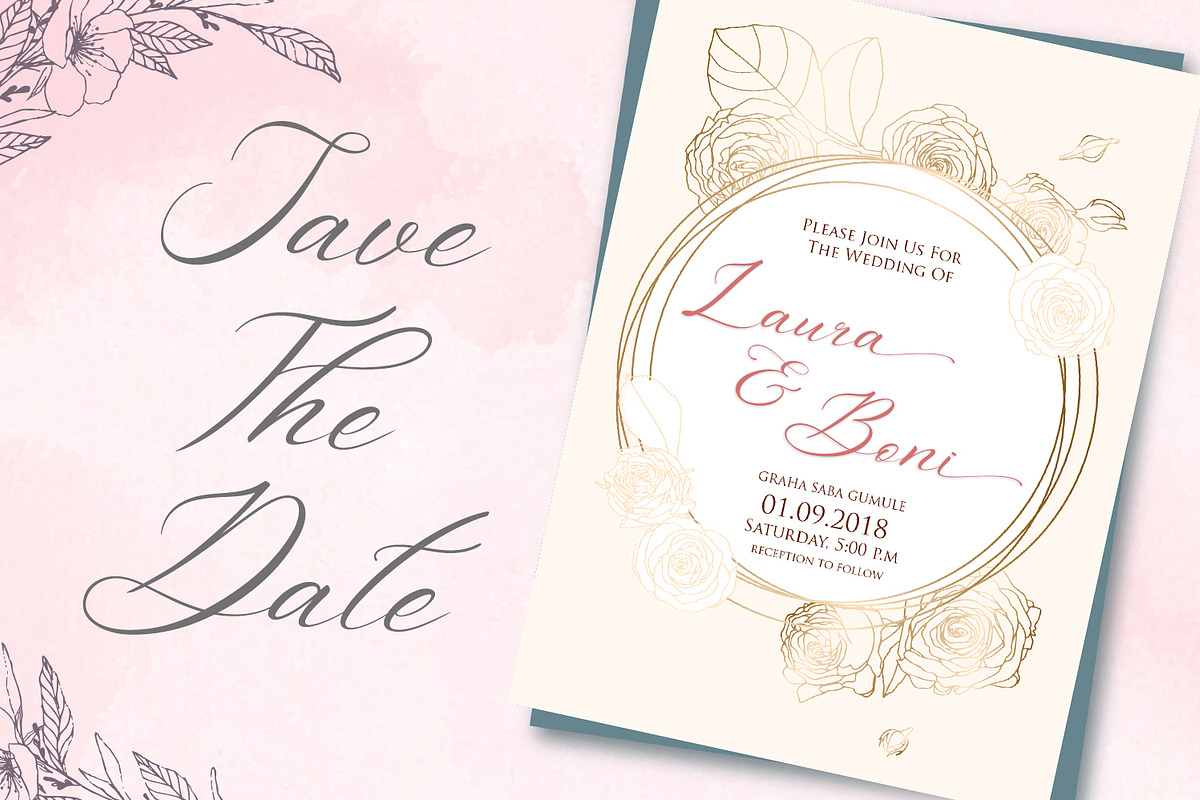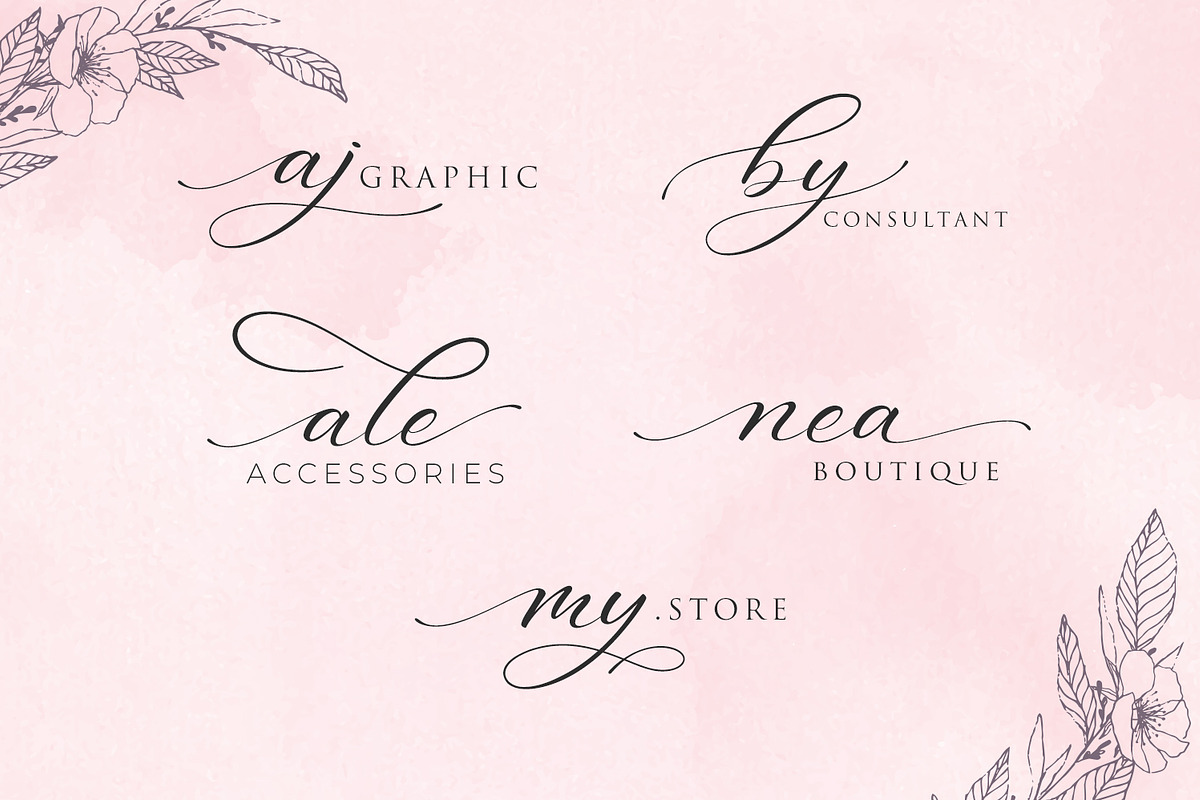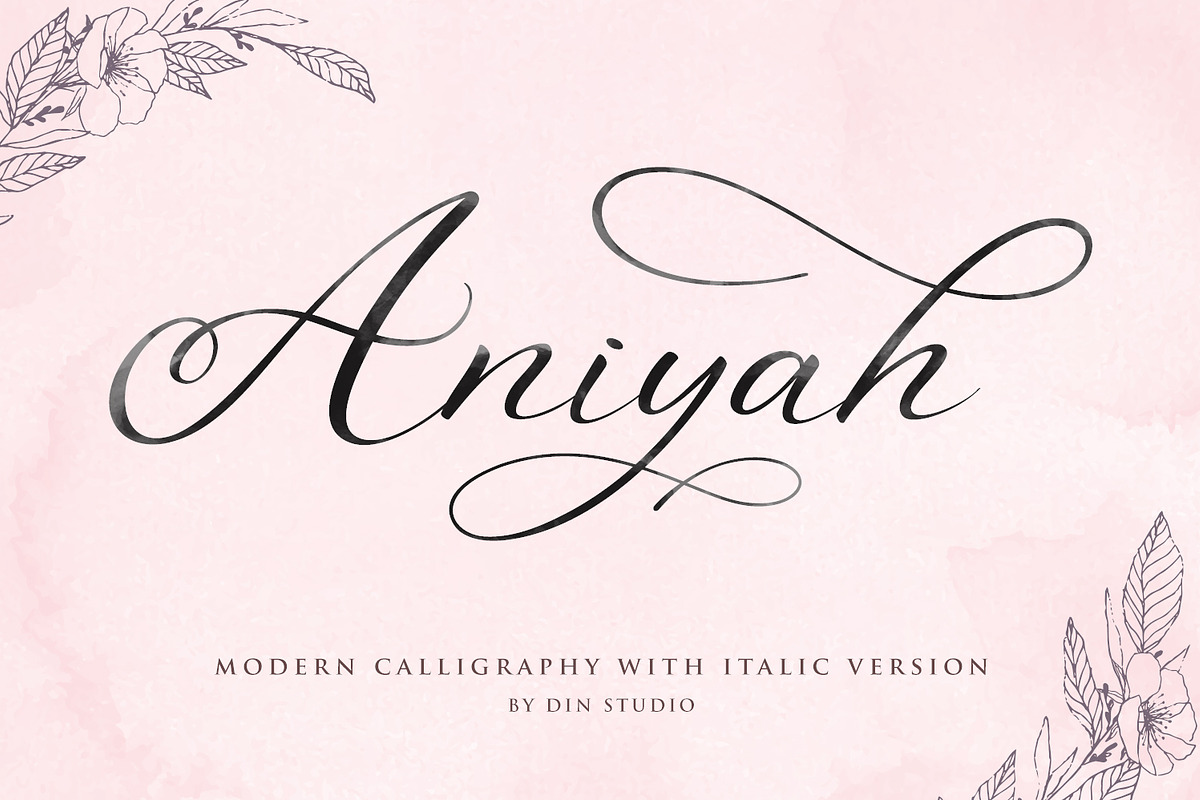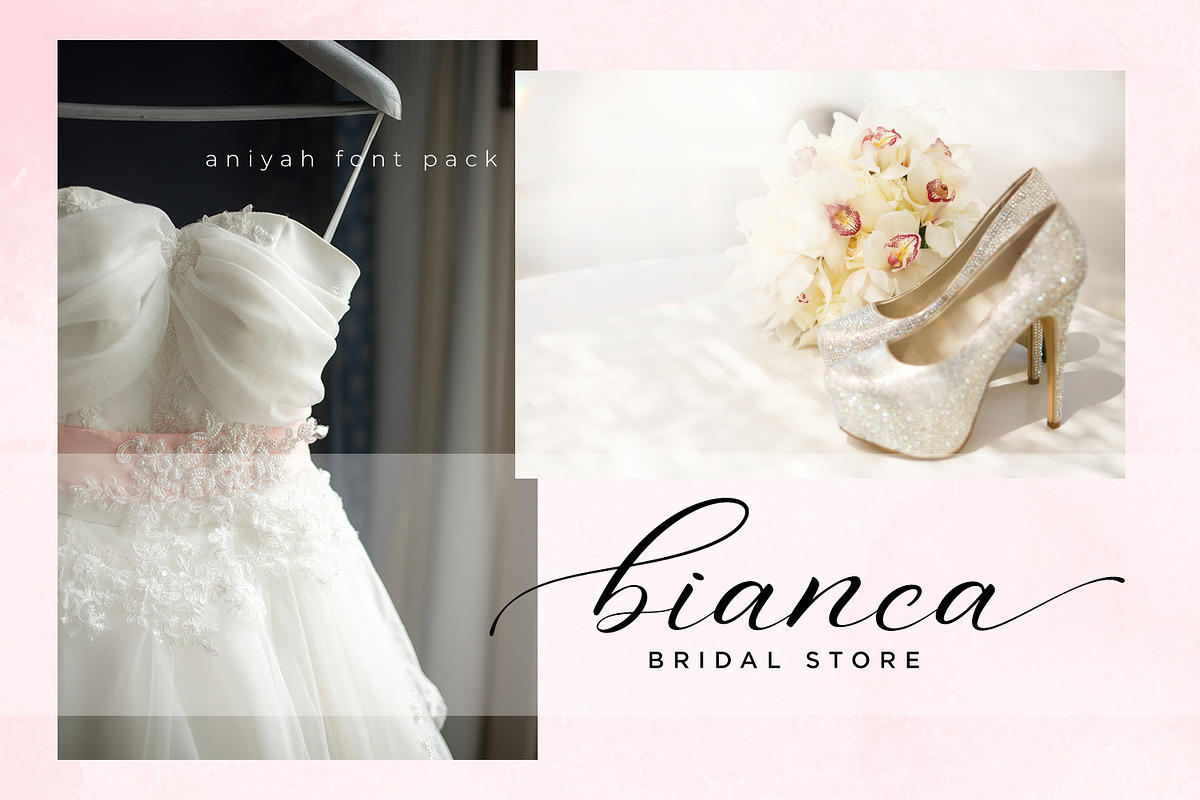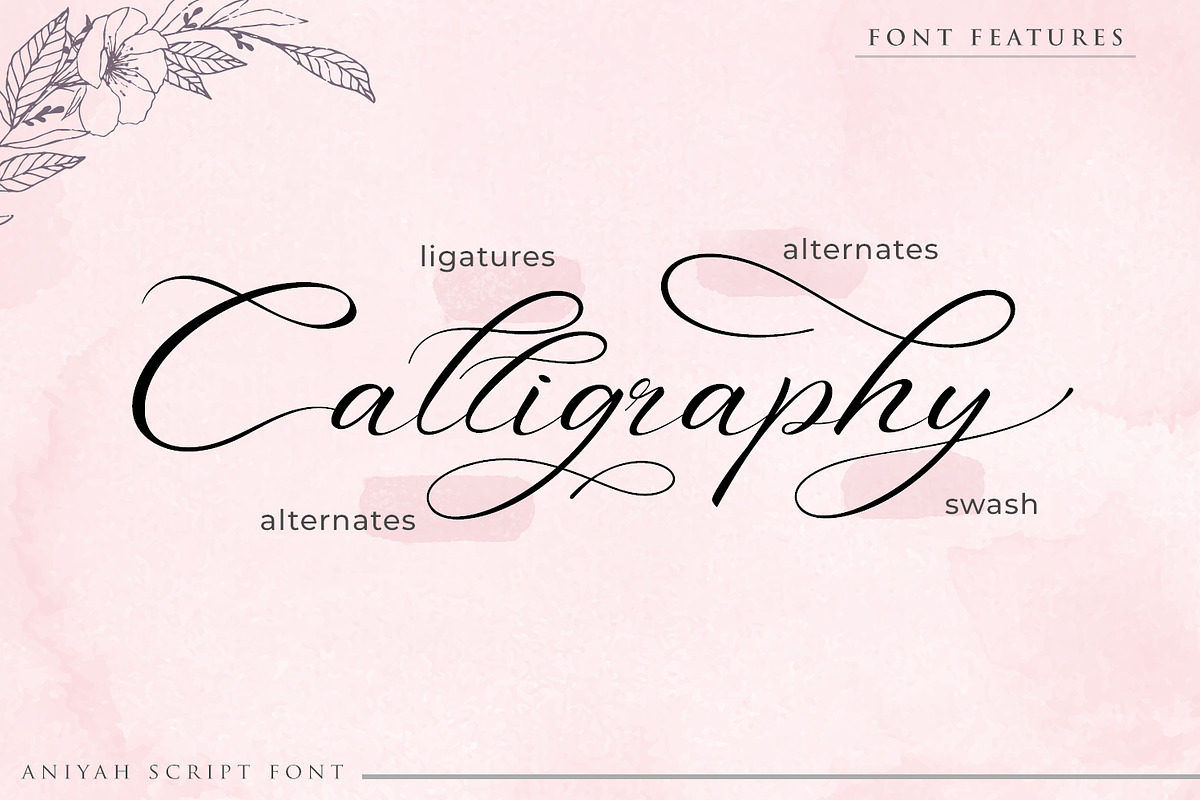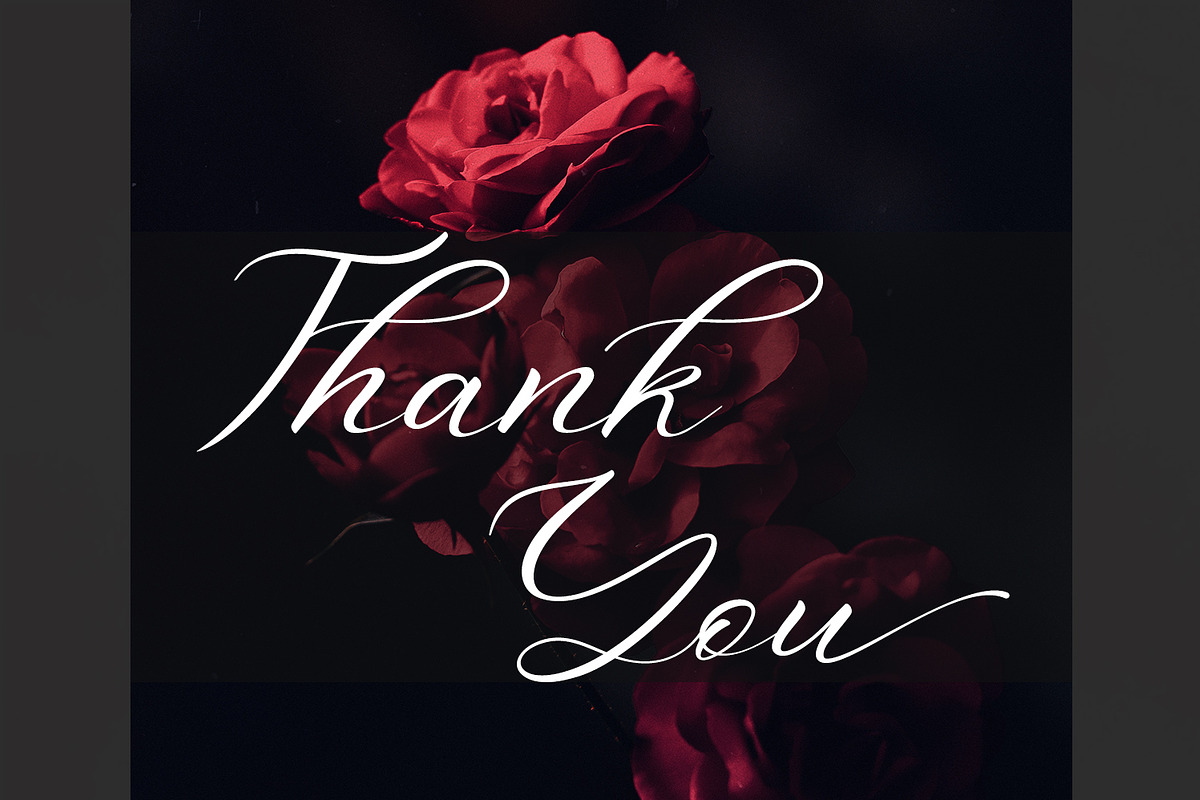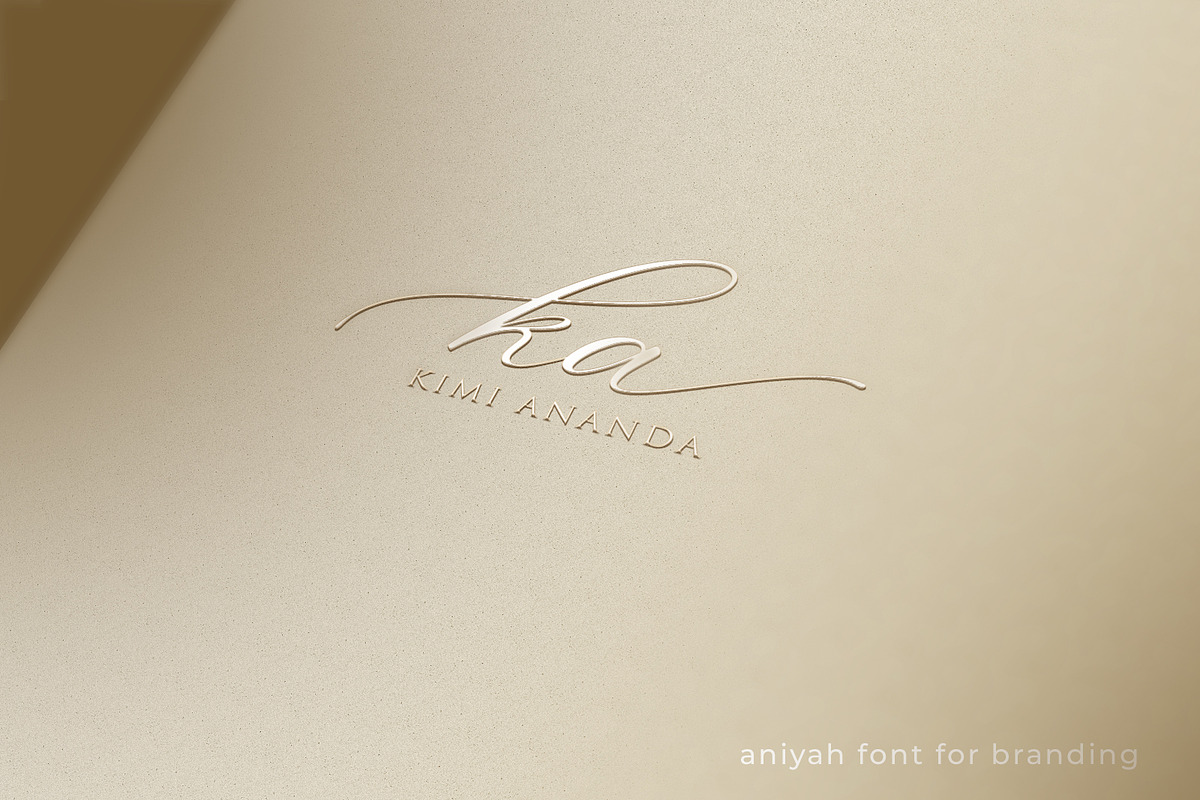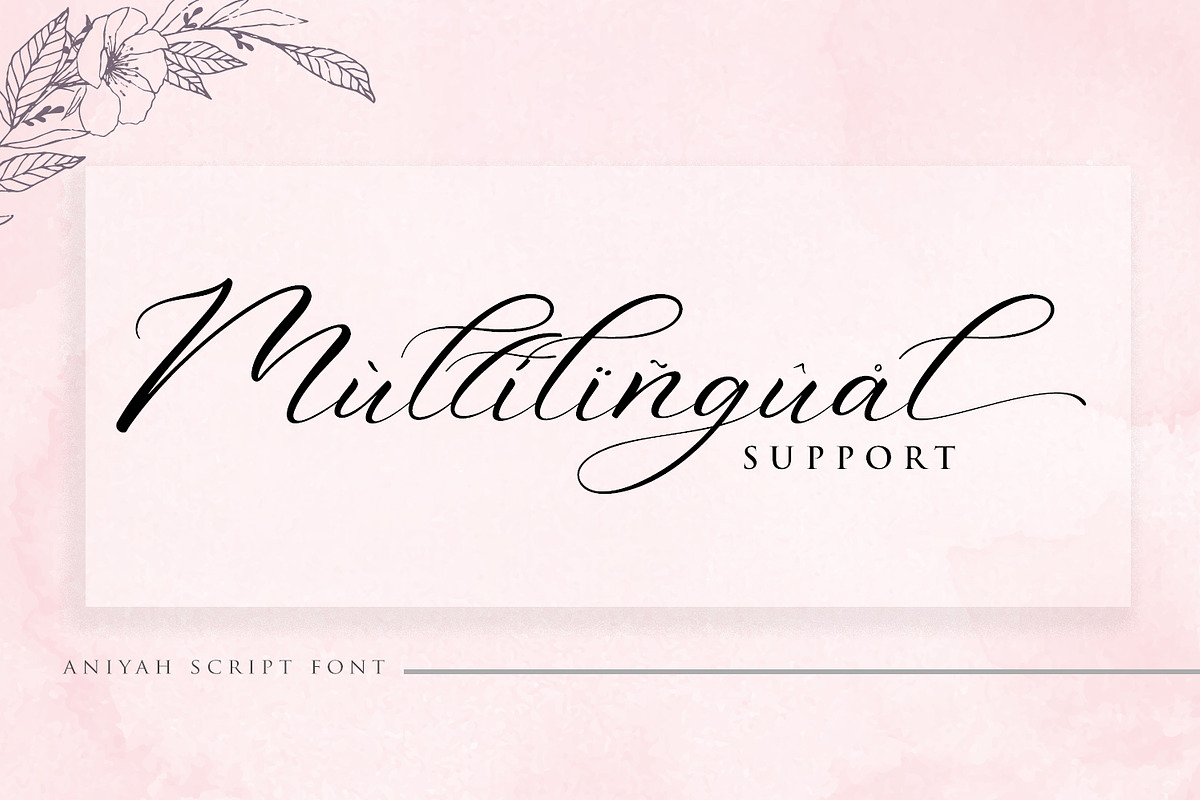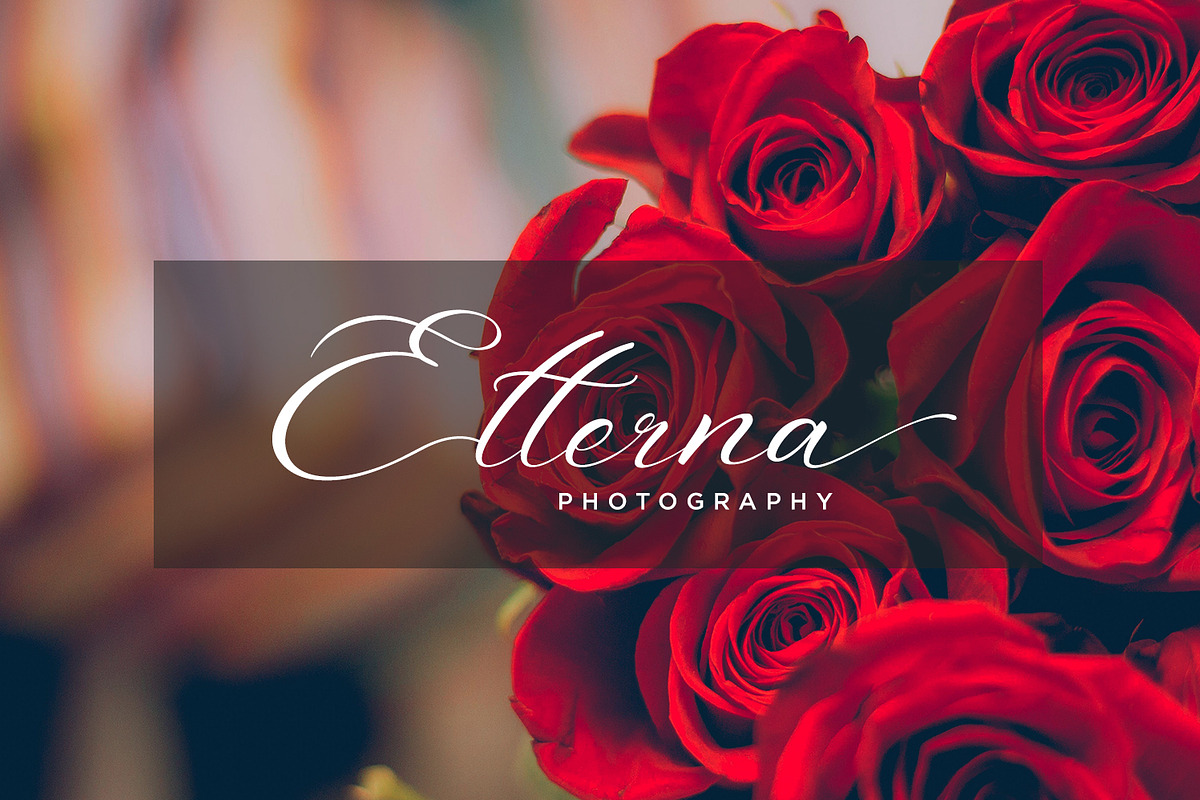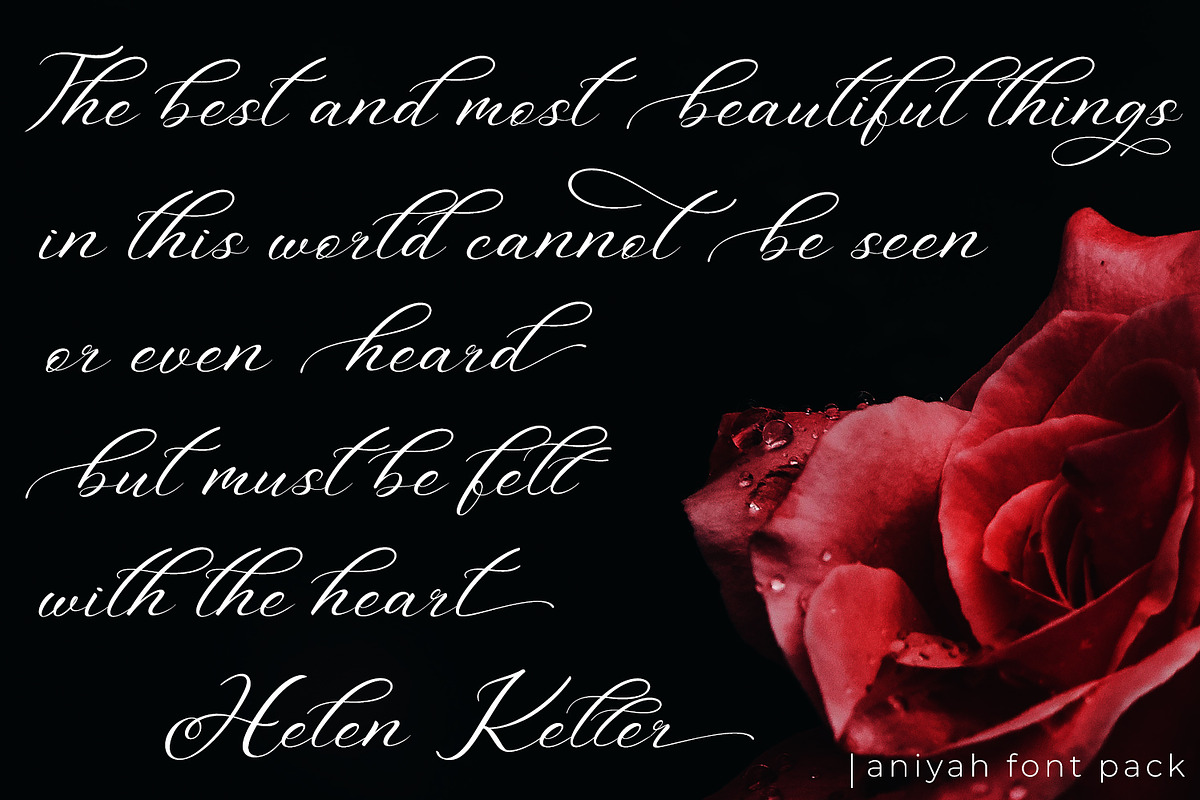
Aniyah Script Calligraphy
Introducing Aniyah Script - Beautiful Calligraphy. Made with naturally handwritten and modern style. it's bring beautiful and modern typeface. Aniyah Script best use for various designs, such as posters, banners, logos, book covers, headings, printed products, merchandise, social media, and more. Find out more ways to use this font by taking a look at the font preview.
Aniyah Script Features :
- Beautiful ligatures
- Numbering & amp; Punctuation
- 1 front swash & 2 end swash (a-z)
- Alternates (b,d,g,h,j,k,l,t)